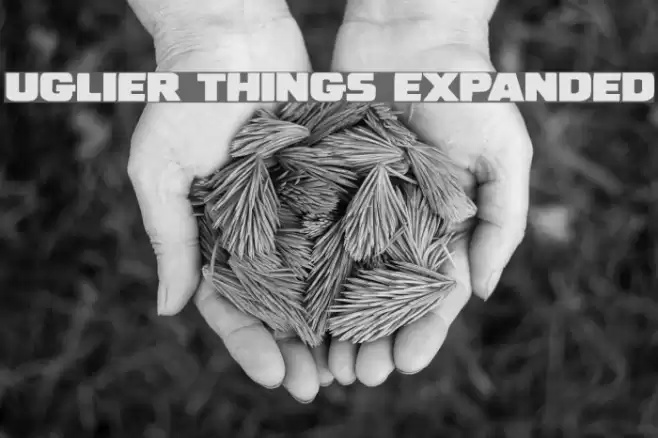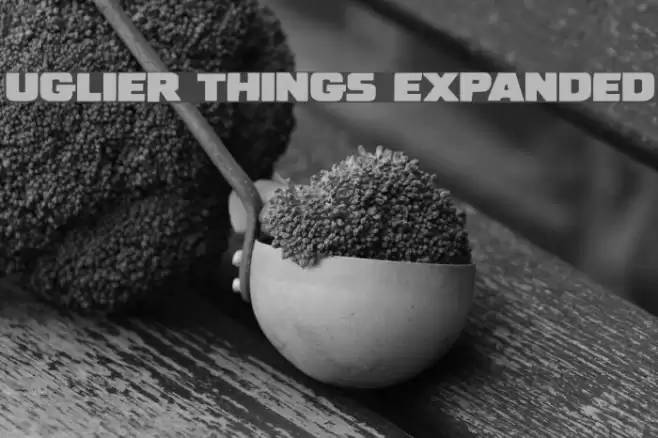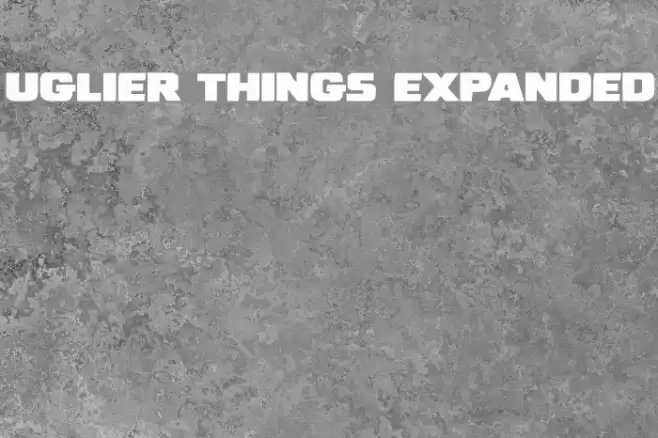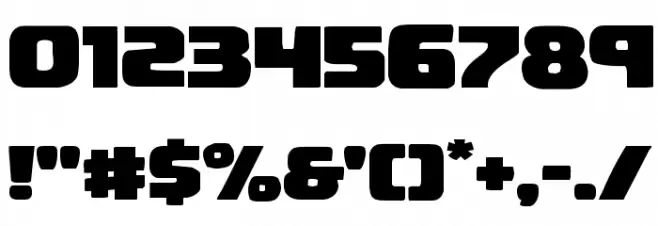
Uglier Things Expanded Font
Uglier Things Expanded Description
This font features a bold and impactful design with thick, blocky characters that convey a sense of strength and modernity. The uppercase letters are uniformly wide, creating a cohesive and powerful visual presence. The numbers and special characters maintain the same boldness, ensuring consistency across all text elements. The font's style is reminiscent of industrial or futuristic themes, making it suitable for projects that require a strong visual impact. Its expanded width allows for excellent readability, even at smaller sizes, while the tight character spacing enhances its bold appearance.
A bold, blocky font with an industrial and modern aesthetic from Uncategorized fonts.
- Proposed Projects: Ideal for branding, posters, headlines, and any design requiring a strong, impactful typeface.
- Width: Expanded
- Character Spacing: Tight